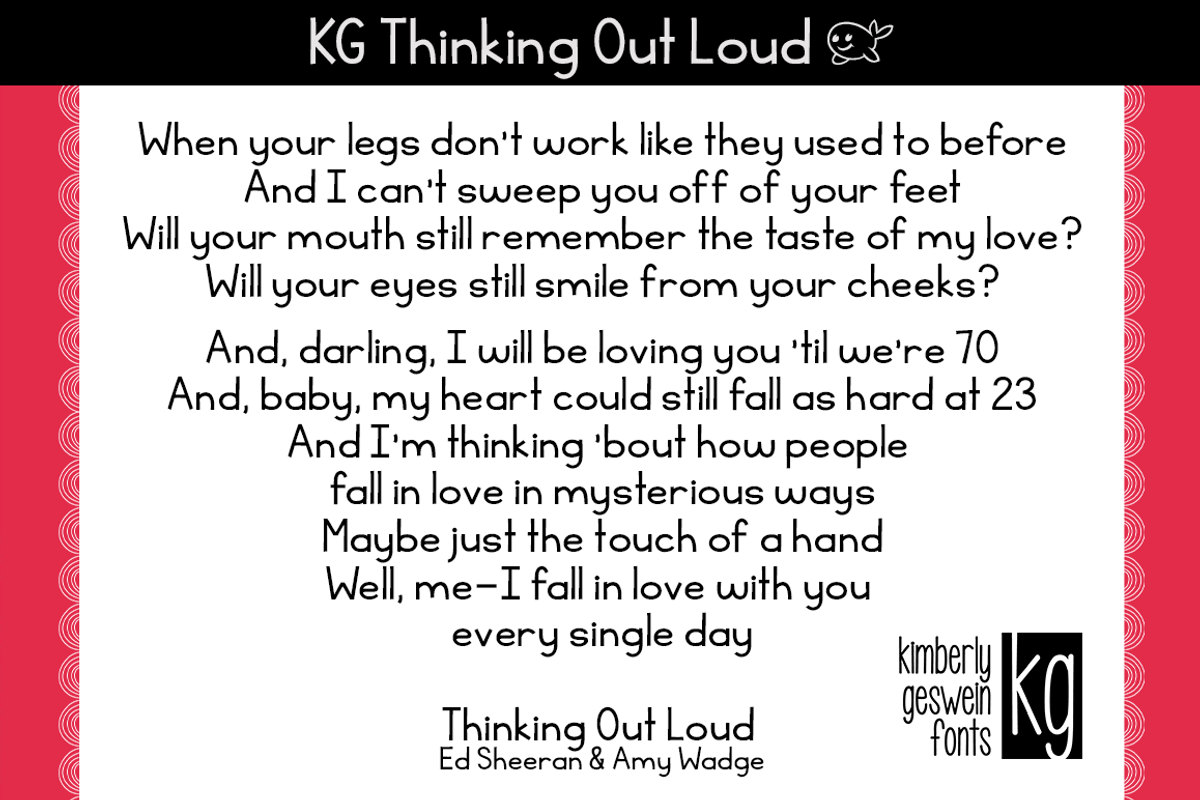
KG Thinking Out Loud Font
KG Thinking Out Loud Font by Kimberly Geswein Fonts is a font selected for branding, posters, packaging, typography.
Why KG Thinking Out Loud Font is worth a look
KG Thinking Out Loud Font by Kimberly Geswein Fonts fits naturally into Branding, posters, packaging, typography.